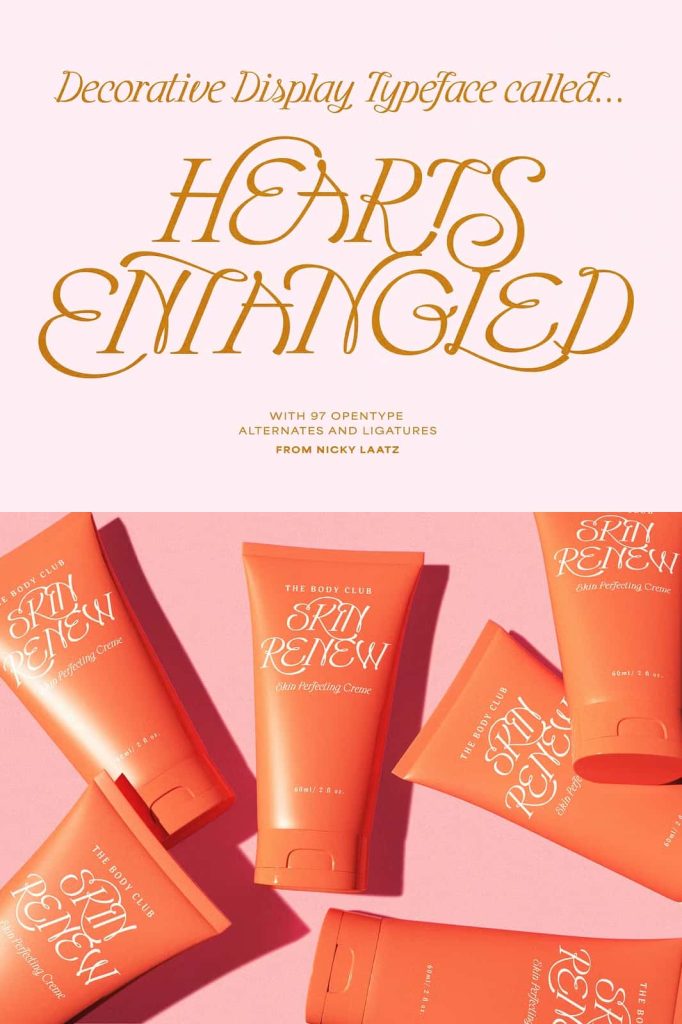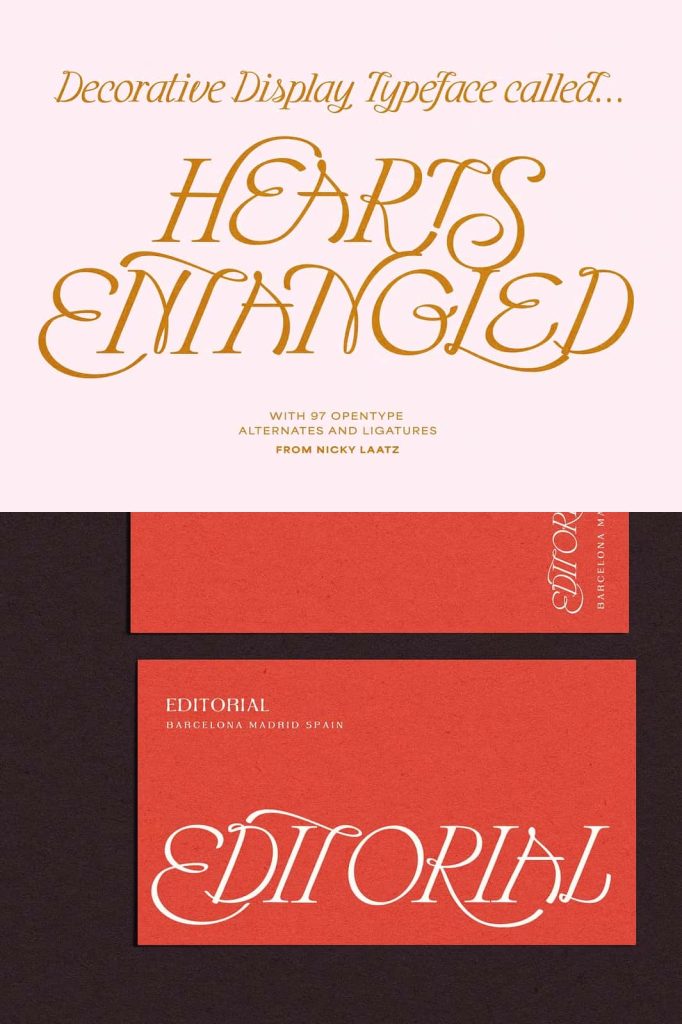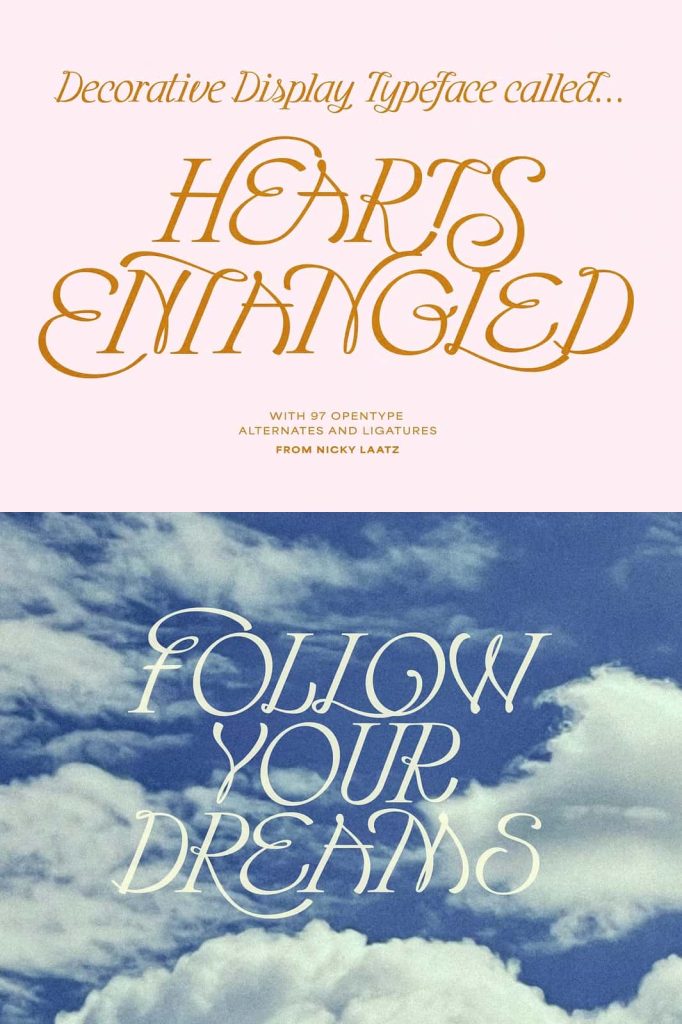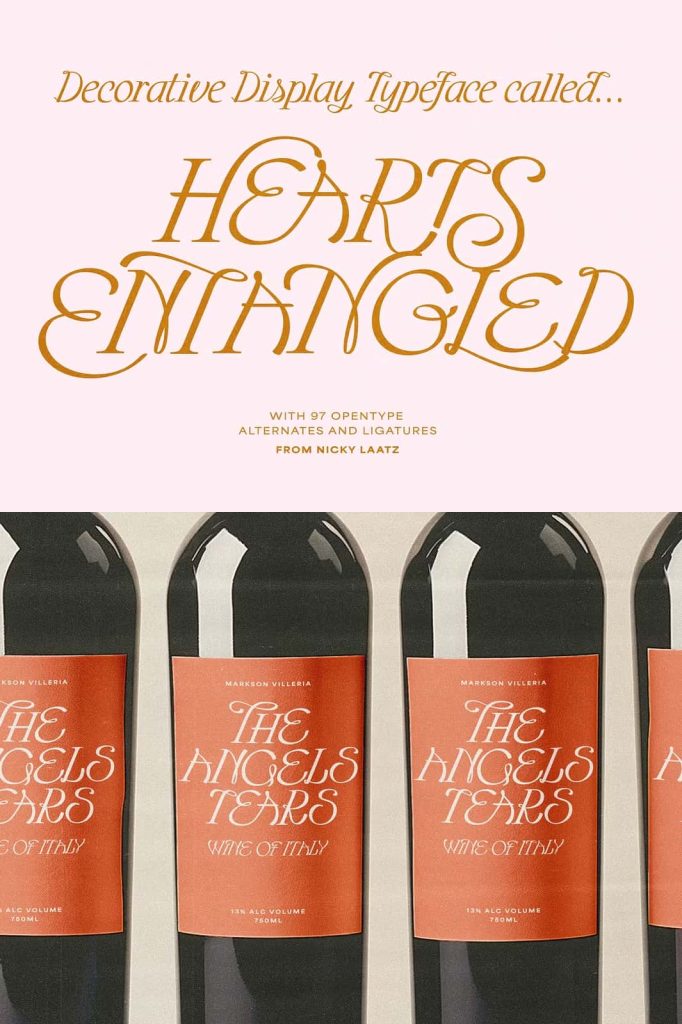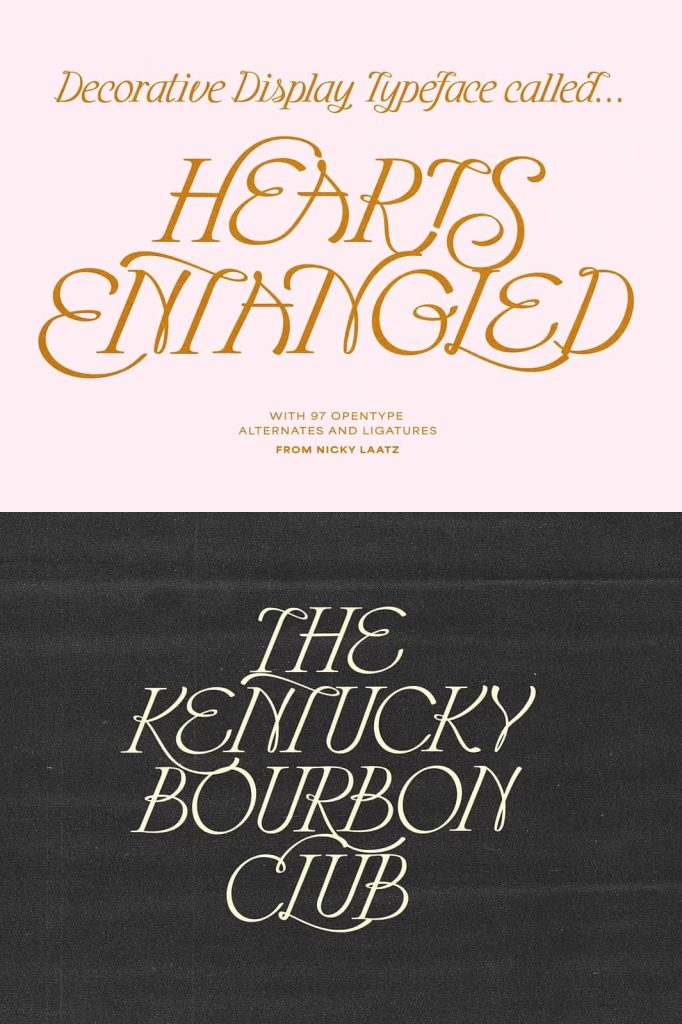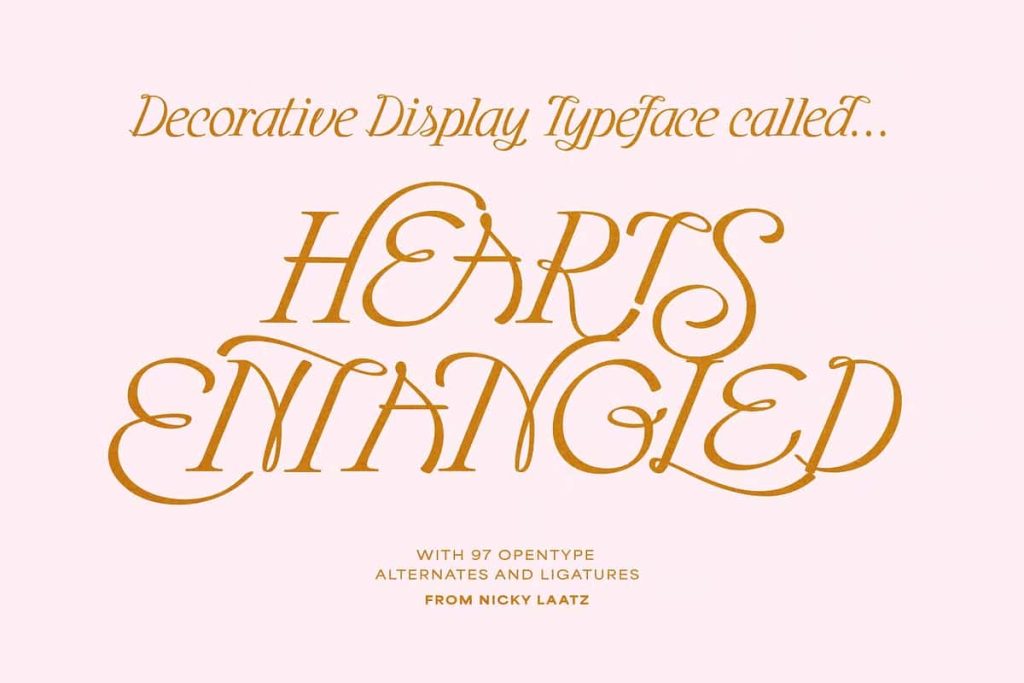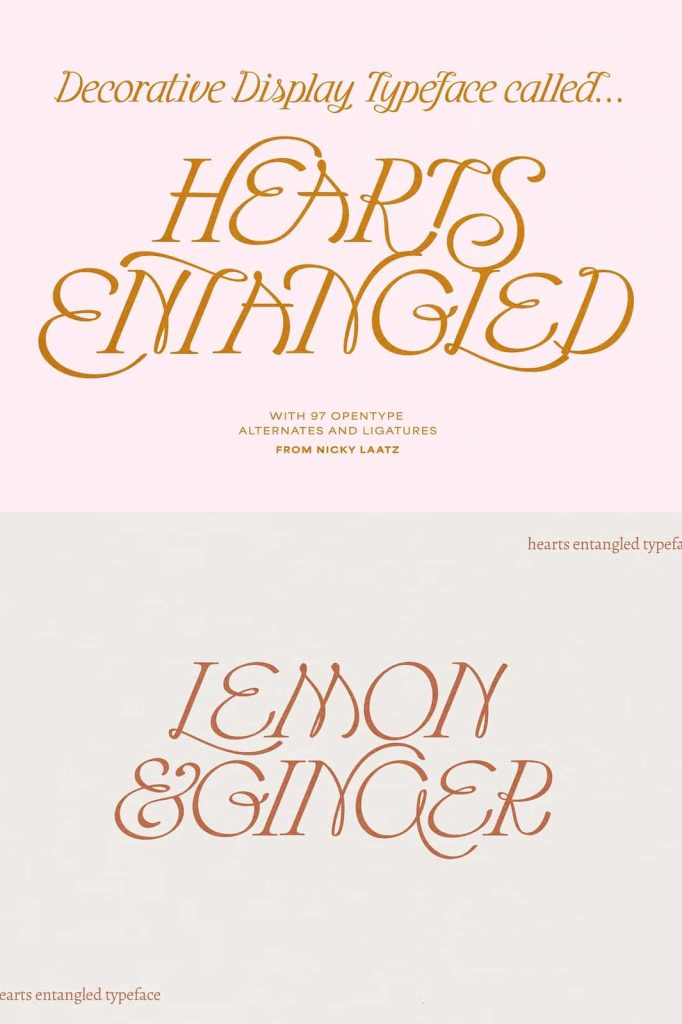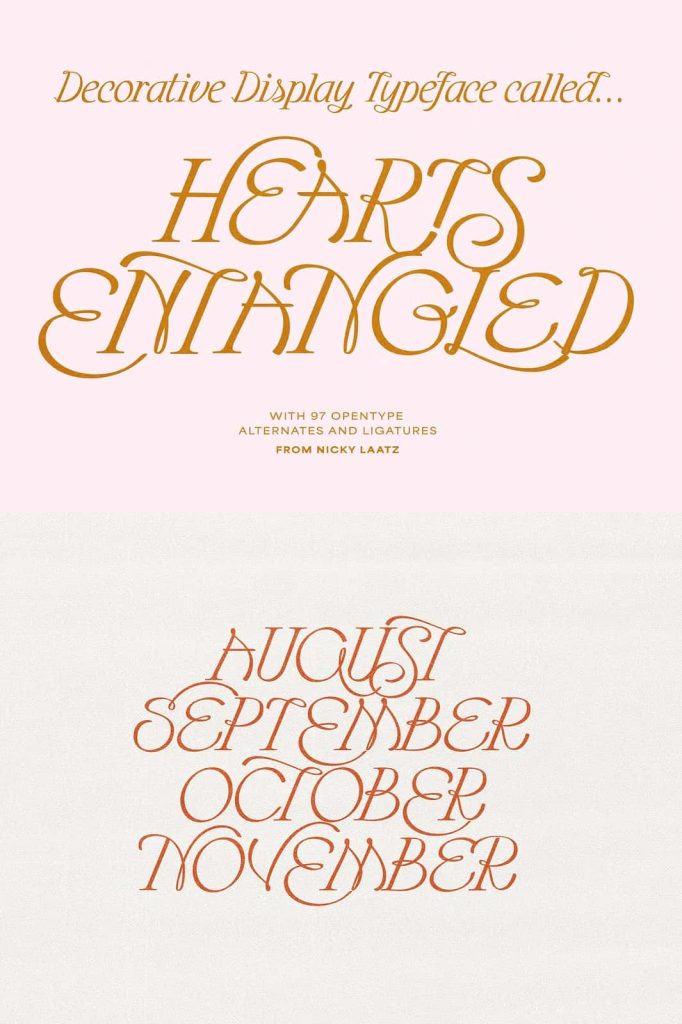
Say hello to ‘Hearts Entangled’ – Where timeless, romantic calligraphy meets a traditional serif, creating an expressive, flamboyant fusion of elegance and decorative artistry.